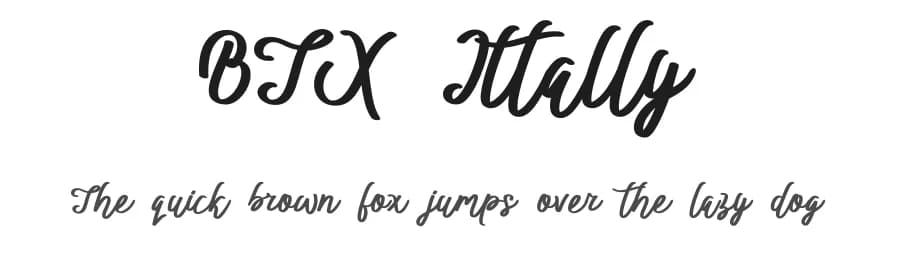
About BTX Ittally Font
BTX Ittally is a script & handwritten font designed by Betwixt Designs. It includes 187 glyphs, a regular weight, OTF (CFF) format, and 206 languages. BTX Ittally is free to download; check the license details on this page before commercial use. Script & handwritten fonts like BTX Ittally work best for wedding invitations, greeting cards, signatures, and elegant branding.
BTX Ittally Font is a script font that shines as a display or heading face. Pair it with a clean sans-serif or serif font for body text β the contrast creates a clear hierarchy while the two styles stay balanced and easy to read.
BTX Ittally Font